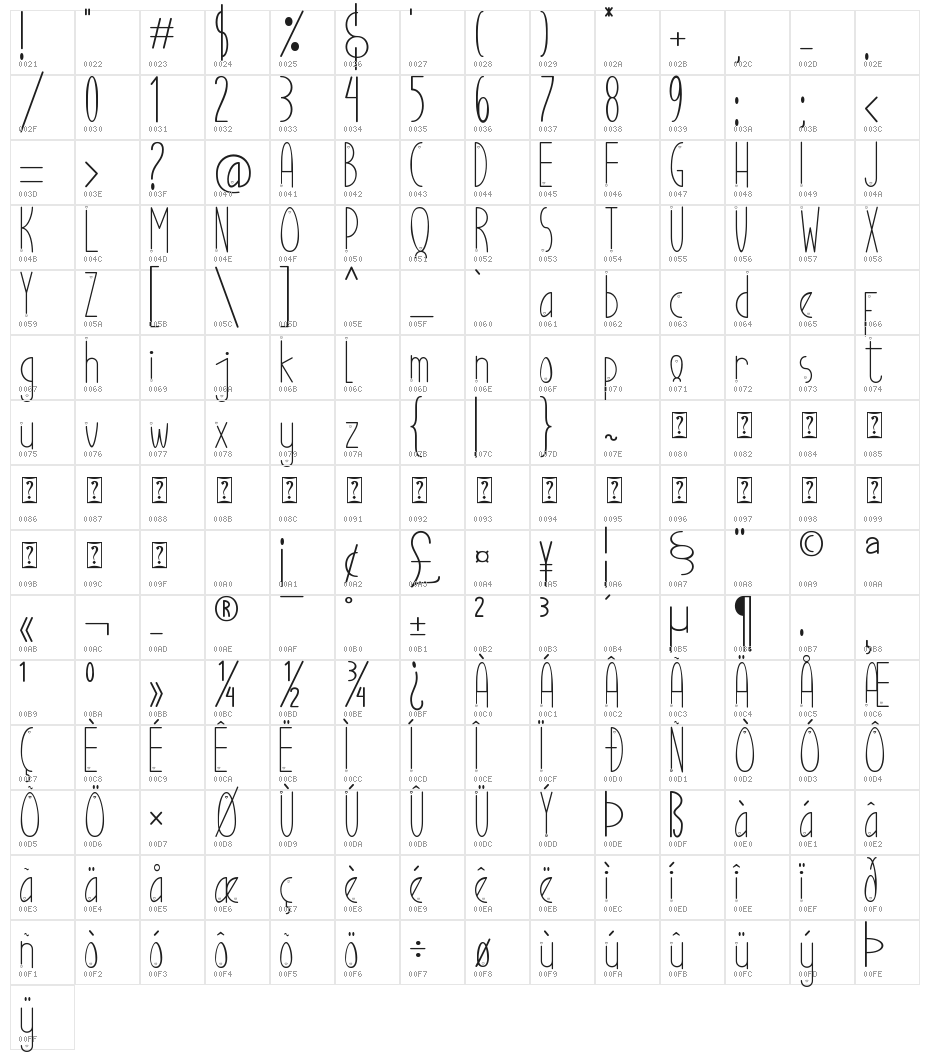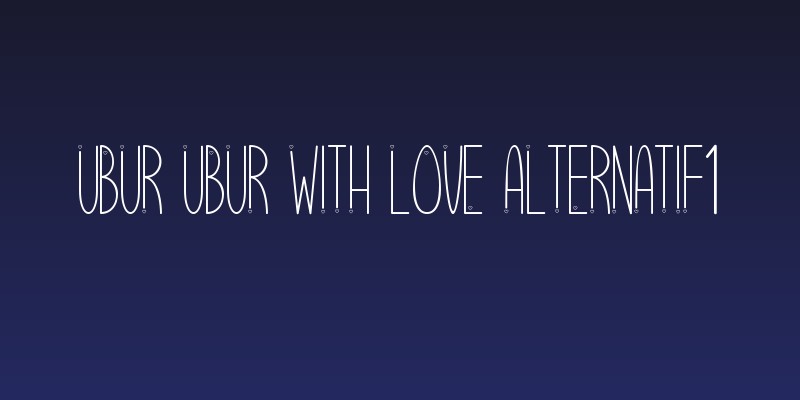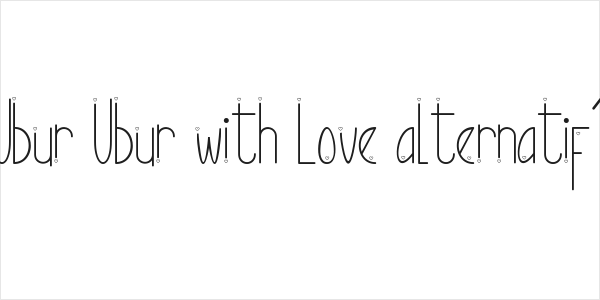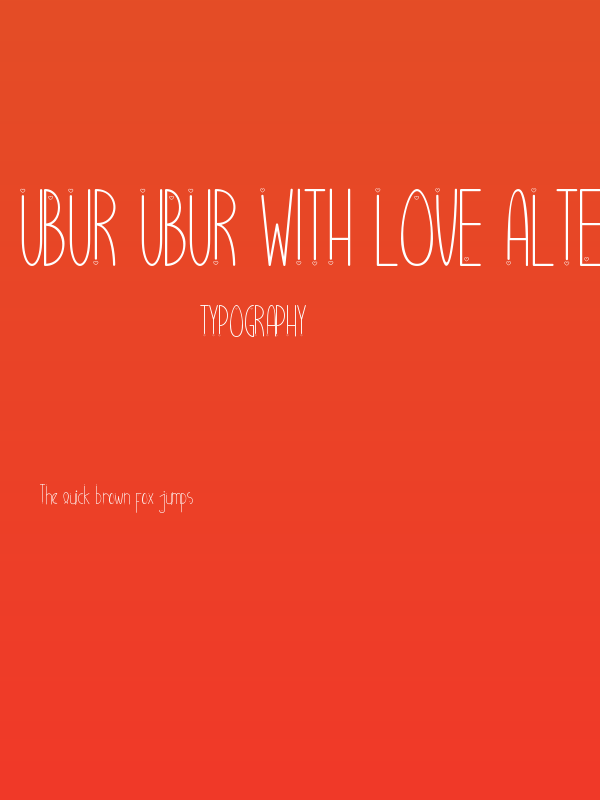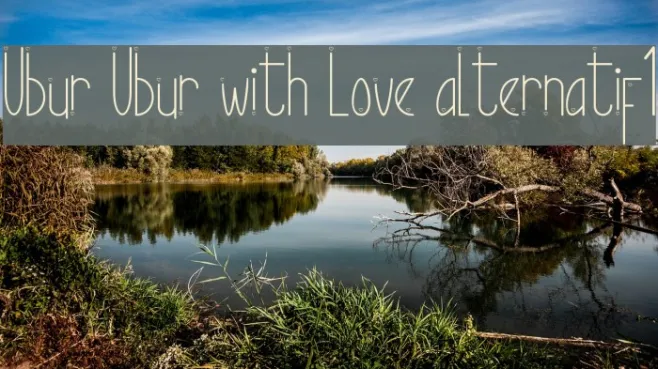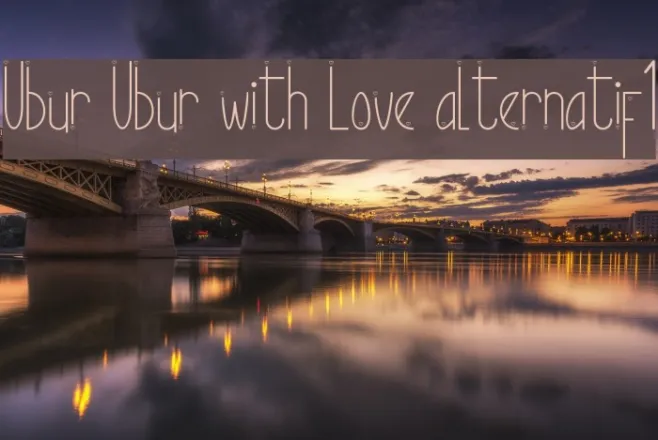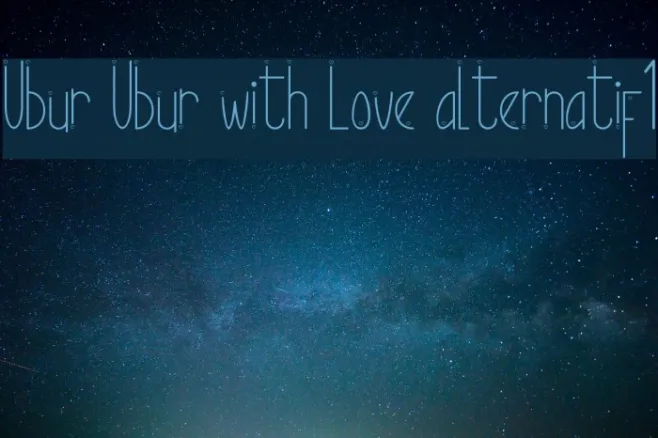
Ubur Ubur with Love alternatif1 Font
Ubur Ubur with Love alternatif1 Description
This playful and whimsical font features tall, slender characters with a unique twist—each letter is adorned with small heart shapes, adding a touch of charm and romance. The font maintains a consistent stroke width, giving it a clean and modern appearance. Its elongated forms and subtle curves create a sense of elegance and sophistication, while the heart details introduce a playful and lighthearted element. The numerals and special characters follow the same design principles, ensuring a cohesive look across all glyphs. This font is perfect for projects that require a touch of personality and warmth.
| Overall Style | Playful, Romantic |
| Proposed Projects | Ideal for wedding invitations, romantic greeting cards, playful branding, and children's book covers. |